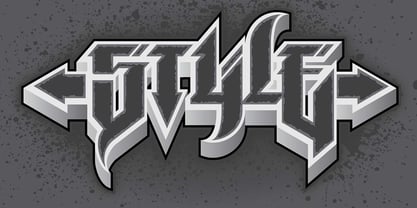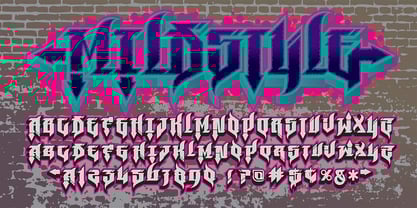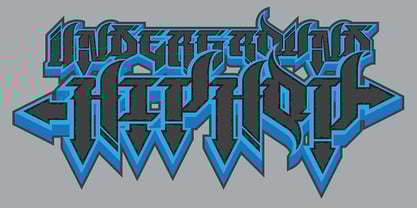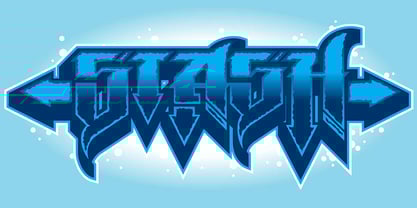
MildStyle
by Graffiti Fonts
The MildStyle Font Family was designed by Matthew Napolitano and published by Graffiti Fonts. MildStyle contains 5 styles and family package options.
Our MildStyle family is a simplistic Graffiti "wildstyle". This layered type system includes four stackable styles: fill, outline, 3D and inner detail as well as a color SVG style made up of all 4 styles from the layered family. A simpler version of MildStyle was first designed in 2012, the revised and re-released in 2019.